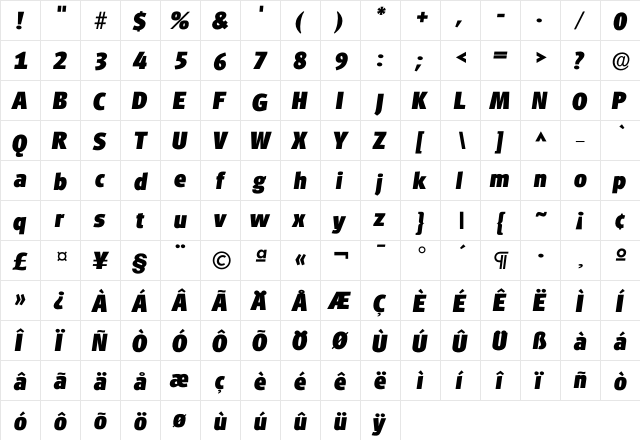
Iglasgow ExtraBold
Design Context for Iglasgow Typeface
Iglasgow offers clean, dependable letterforms without strong stylistic allegiance, making it a practical choice for designers who need flexibility. The heavy weight commands attention and anchors typographic hierarchies.
Pro Tip: Pair Iglasgow with a font of contrasting weight or personality to build a more expressive typographic hierarchy.